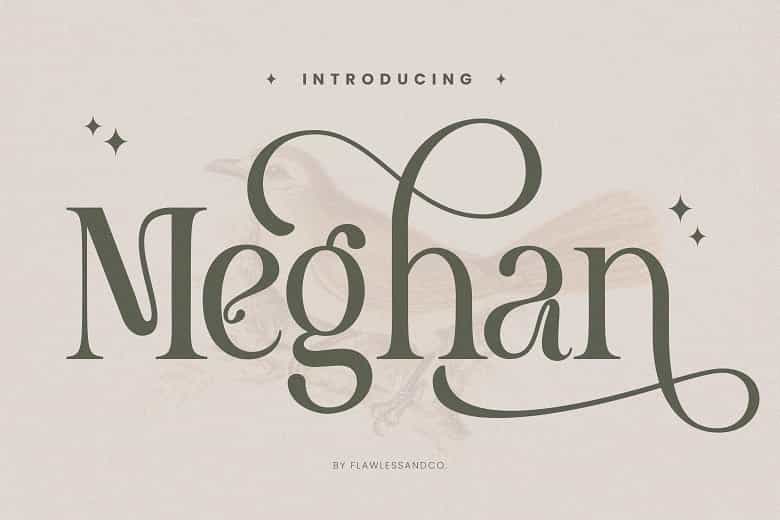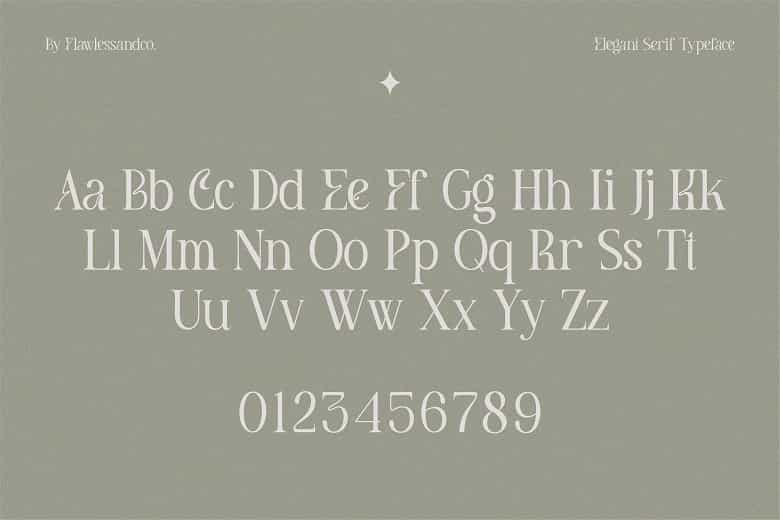
Meghan is a modern serif font with some artsy touch and an elegant feel to it. These are some connected letters that are very suitable for branding materials, t-shirts, logos, posters, photos, quotes and many more. This is a unique display font which you can use for your creativity and come up with beautiful designs.